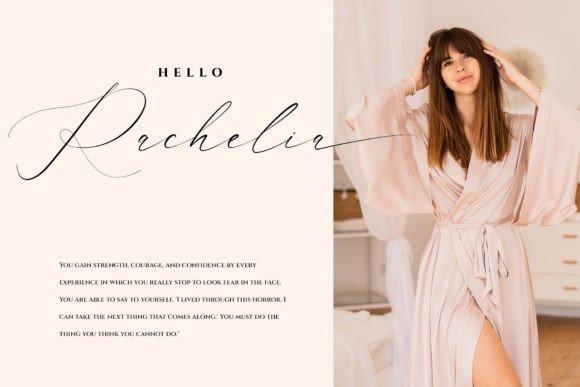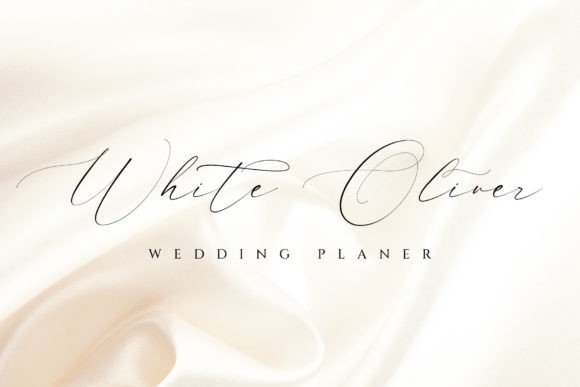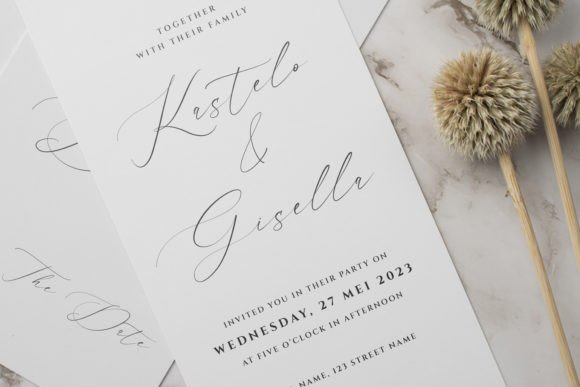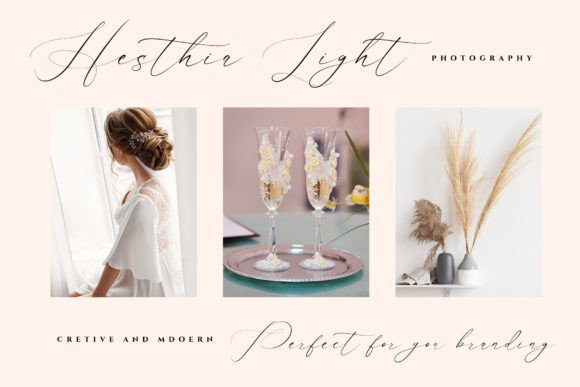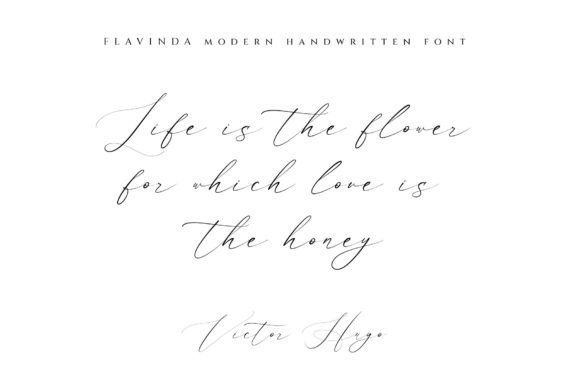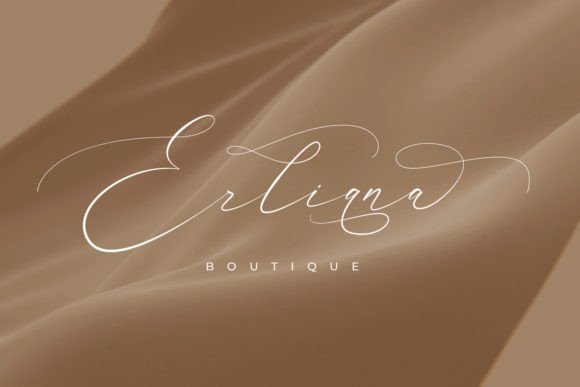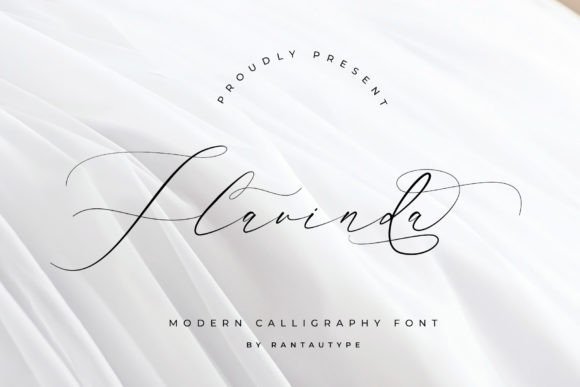
Introducing Flavinda Font: The Perfect Handwritten Font for Your Creative Projects
Are you a designer or crafter looking for a beautiful and unique font to add a personal touch to your projects? Look no further than Flavinda Font! Flavinda Soltera is a stunning handwritten font that is perfect for a variety of creative applications, from logos and watermarks to wedding invitations and social media graphics.
What Makes Flavinda Font So Special?
Flavinda Font is a beautifully crafted handwritten font that exudes elegance and sophistication. Its dainty and delicate strokes make it perfect for designs that require a touch of femininity and whimsy. The font is highly versatile and can be used for a wide range of projects, including:
- Quotes and typography art
- Cards and greeting cards
- Web design and social media graphics
Key Features of Flavinda Font
So, what makes Flavinda Font so special? Here are just a few of its key features:
- Beautiful Handwritten Script: Flavinda Font features a stunning handwritten script that is both elegant and playful.
- Highly Versatile: The font is perfect for a wide range of projects, from logos and branding materials to wedding invitations and social media graphics.
- Easy to Read: Despite its delicate strokes, Flavinda Font is highly legible and easy to read, making it perfect for body text and captions.
How to Use Flavinda Font in Your Designs
Using Flavinda Font in your designs is easy! Here are a few tips to get you started:
- Pair it with Bold Fonts: Pair Flavinda Font with bold fonts to create a striking contrast and add visual interest to your designs.
- Use it for Headings and Titles: Use Flavinda Font for headings and titles to add a touch of elegance and sophistication to your designs.
- Experiment with Colors: Experiment with different colors and textures to add depth and visual interest to your designs.
Why Designers and Crafters Love Flavinda Font
Flavinda Font has quickly become a favorite among designers and crafters, and for good reason! Here are just a few reasons why:
- Unique and Eye-Catching: Flavinda Font is a unique and eye-catching font that adds a personal touch to any design.
- High-Quality Design: The font is beautifully designed and crafted with high-quality strokes and attention to detail.
In conclusion, Flavinda Font is a beautiful and versatile handwritten font that is perfect for designers and crafters looking to add a personal touch to their projects. With its elegant and sophisticated script, high-quality design, and ease of use, Flavinda Font is sure to become a favorite in your design toolkit. So why wait? Download Flavinda Font today and start creating stunning designs that will leave a lasting impression!